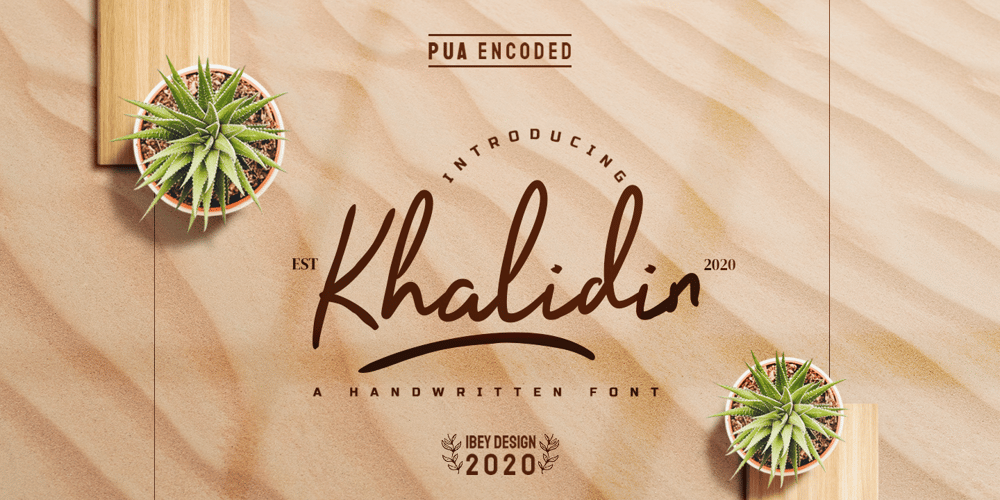
Khalidin Font Family was designed by Ikrar Bey Khubaib and published by IbeyDesign. Khalidin contains 2 styles and family package options. Khalidin Handwritten Script Font is a luxurious handwritten font. It has a modern style and comes in a regular and swash version which gives you the opportunity to create multiple unique designs.It’s perfect for photography, watermarks, social media posts, advertisements, logos & branding, invitations, product designs, labels, stationery, wedding designs, product packaging, special events, or anything that needs a handwriting taste.